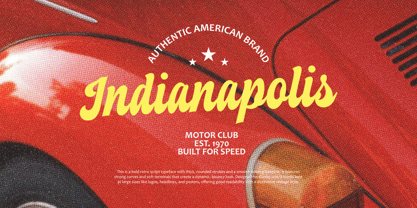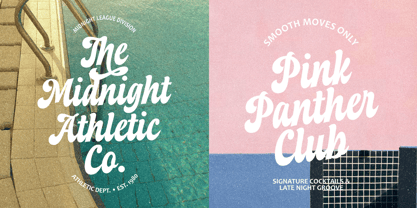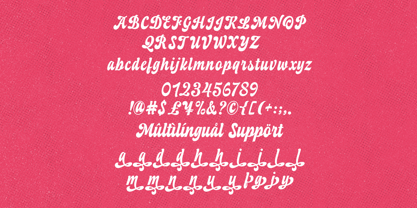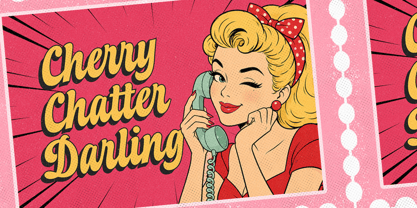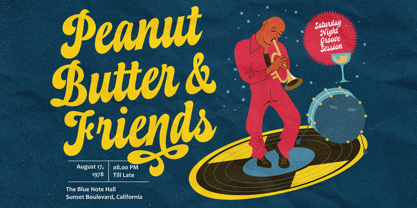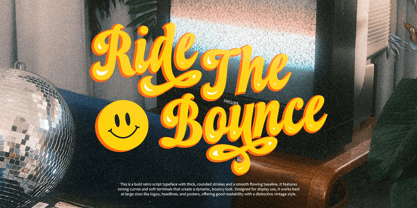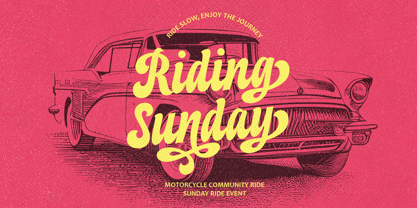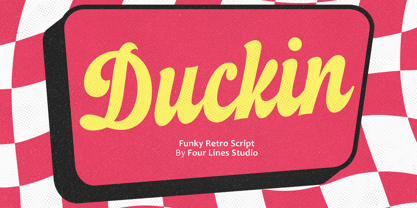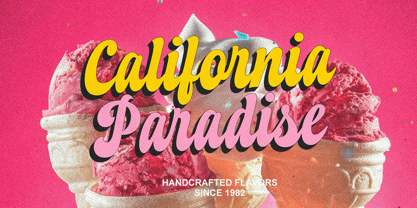
Duckin
by Four Lines Std
The Duckin Font Family was designed by Zain Fahroni and published by Four Lines Std. Duckin contains 1 styles. More about this family
Duckin’ is a retro-style script font featuring bold characters, dynamic flow, and playful letterforms. It combines classic vintage aesthetics with a fun groovy touch, making it perfect for designs that aim to stand out with strong personality and visual impact.
With smooth curves, a flowing baseline, and a bouncy rhythm, Duckin works especially well for logos, posters, product packaging, branding, merchandise, headlines, and social media content. Its expressive style remains highly readable, allowing it to fit both retro and modern designs with a nostalgic feel.